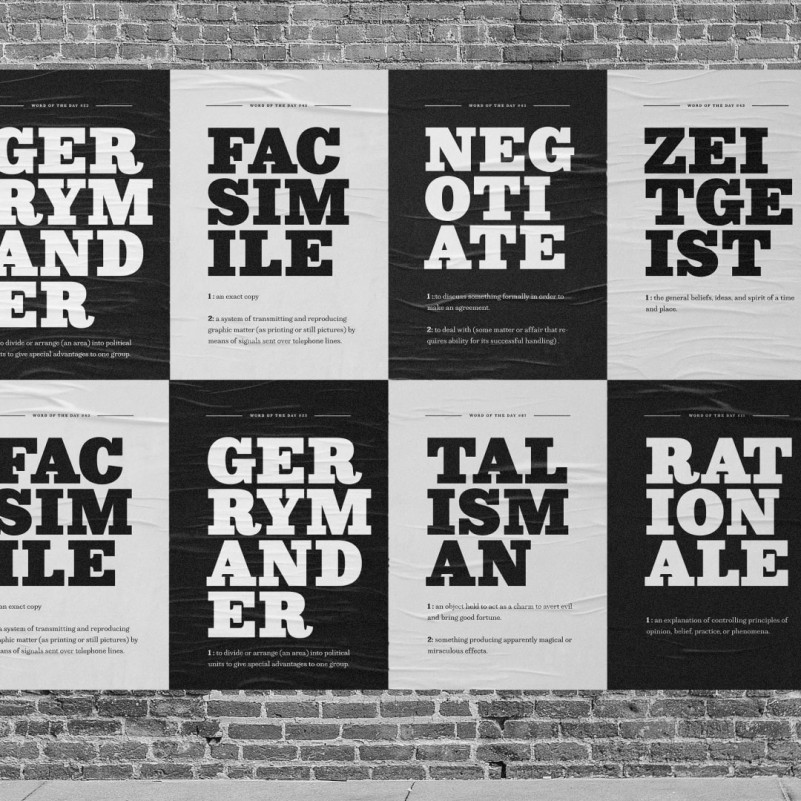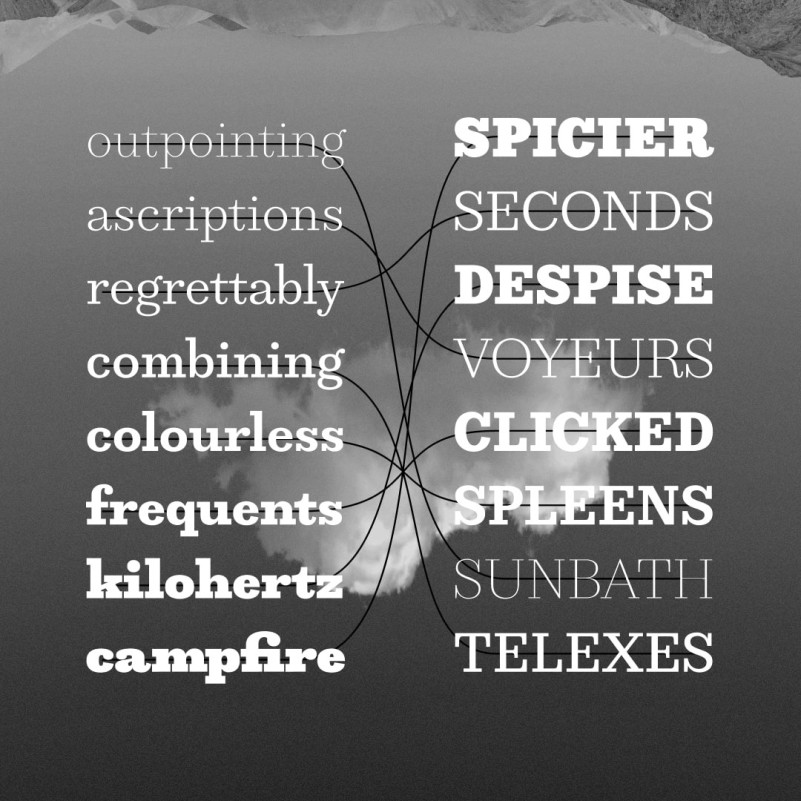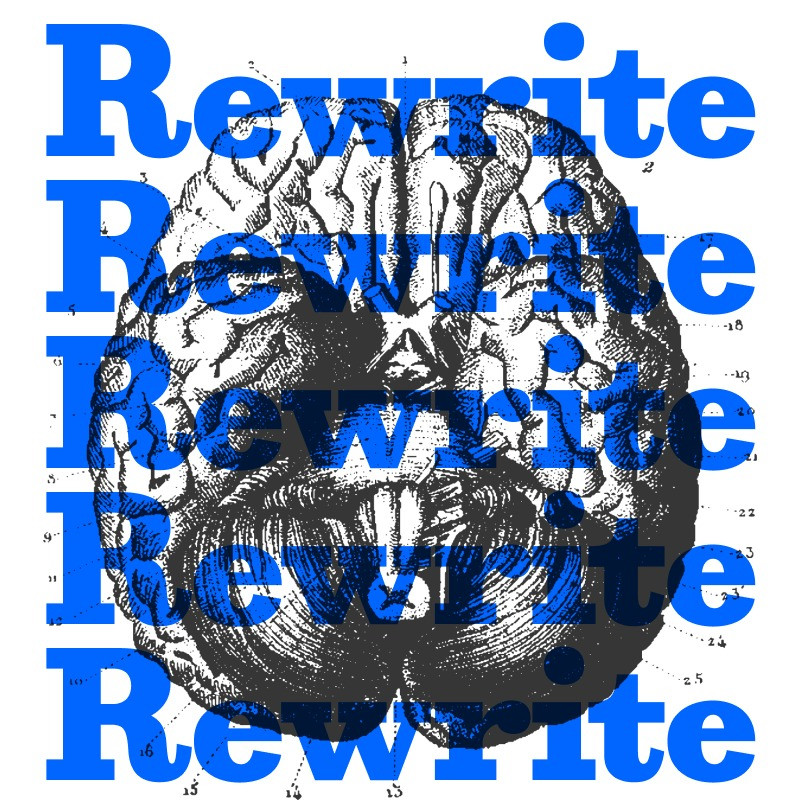
Rewrite Font
Rewrite Font, For lovers of the written word, and anyone unafraid of some strong serifs. Rewrite draws inspiration from Century Schoolbook to Clarendon to Sentinel and everything in-between. I made it during a time when I was both reading and writing a lot. Imagine that. View/Download type specimen (PDF).